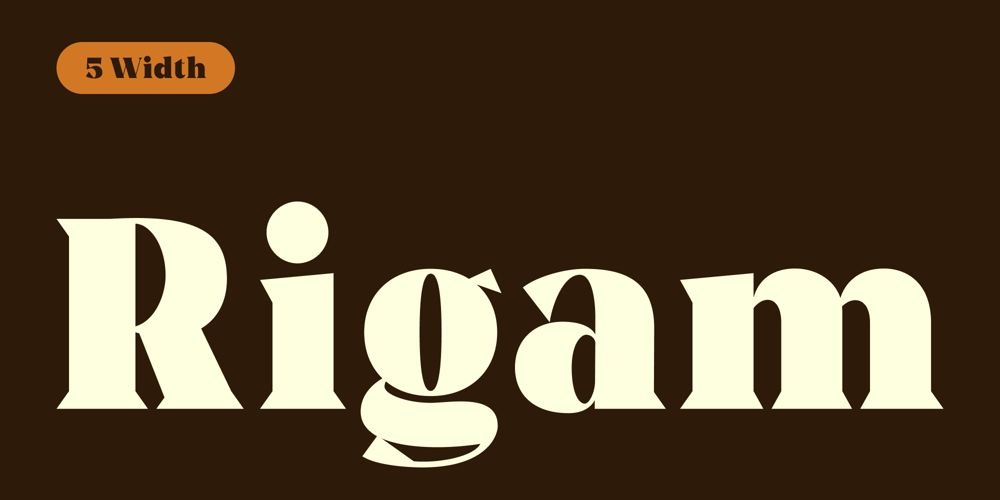
Rigam
Rigam font
Rigam Font Family was designed by Moch Fitrah Hidayat and published by Fitrah Type. Rigam contains 5 styles and family package options. Rigam is the newest typeface with a serif style. Character Inspired By Classic and Elegant Typeface. The entire typography has been designed to work on large sizes. This font is good to use on posters, zines, stickers, and t-shirts.We highly recommend using a program that supports OpenType features and Glyphs panels such as Adobe Illustrator, Adobe Photoshop CC, Adobe InDesign, or CorelDraw, so you can see and access all Glyph variations.